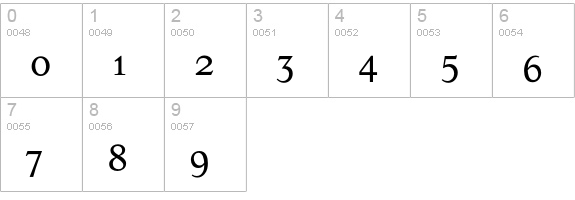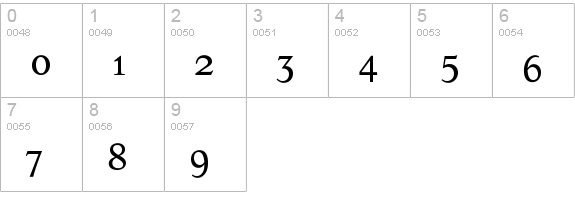
LifeSCEF-Regular Font Details
LifeSCEF-Regular is the standard, neutral variant in the LifeSCEF typeface family \xE2\x80\x94 well suited to general body text, paragraphs, and standard typographic work.
LifeSCEF-Regular is a versatile and modern font that brings a touch of sophistication to any design project. With its clean lines and elegant curves, this font is perfect for both professional and creative applications. Its balanced proportions make it easy to read, while its stylish design adds a touch of flair to any text. What sets LifeSCEF-Regular apart is that it is completely free to download at FontsMarket.com. Whether you're working on a website, a poster, a logo, or any other project, you can easily incorporate this font into your design without any cost. Its timeless style and high-quality design make it a must-have for any designer looking to elevate their work. Download LifeSCEF-Regular today and add a touch of sophistication to your next project.